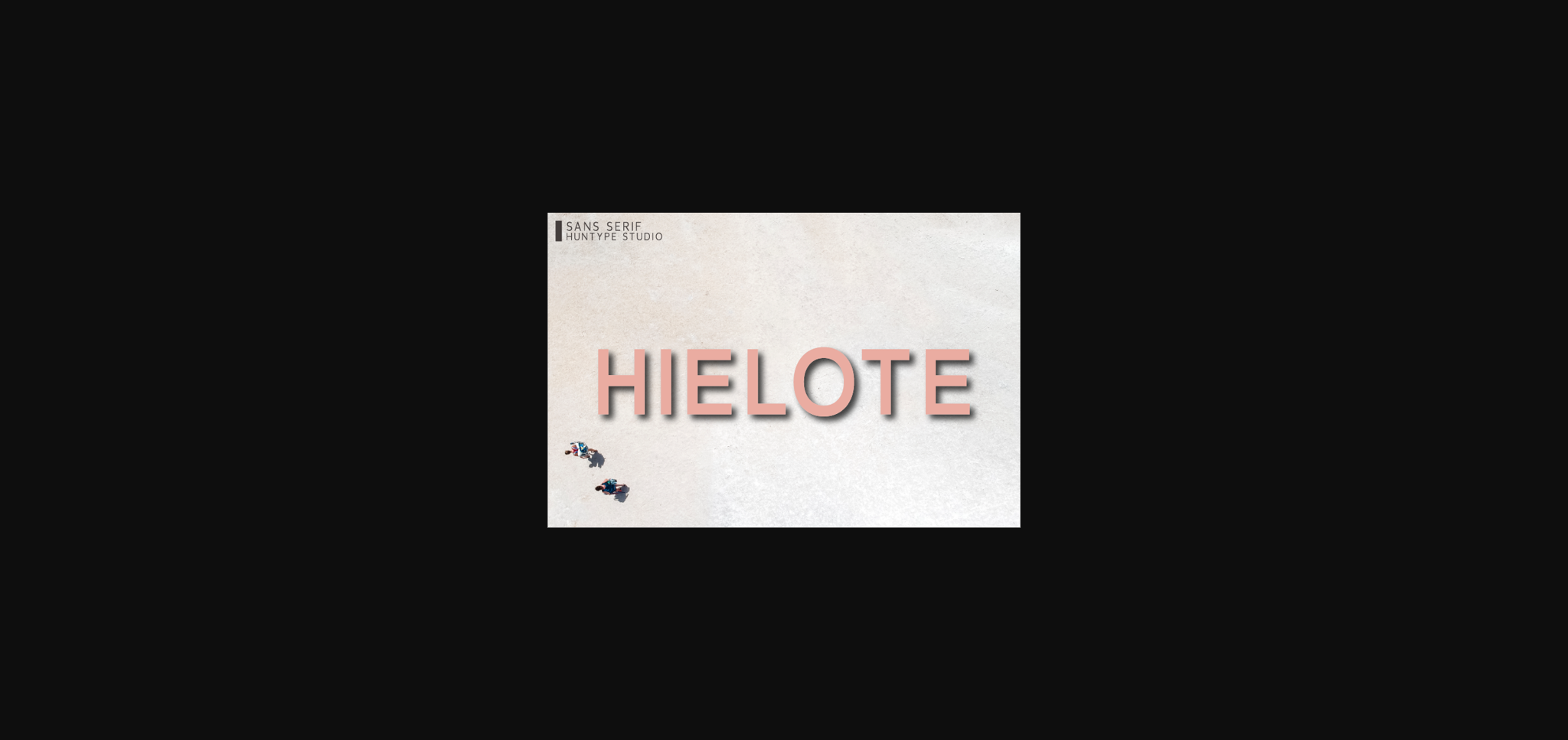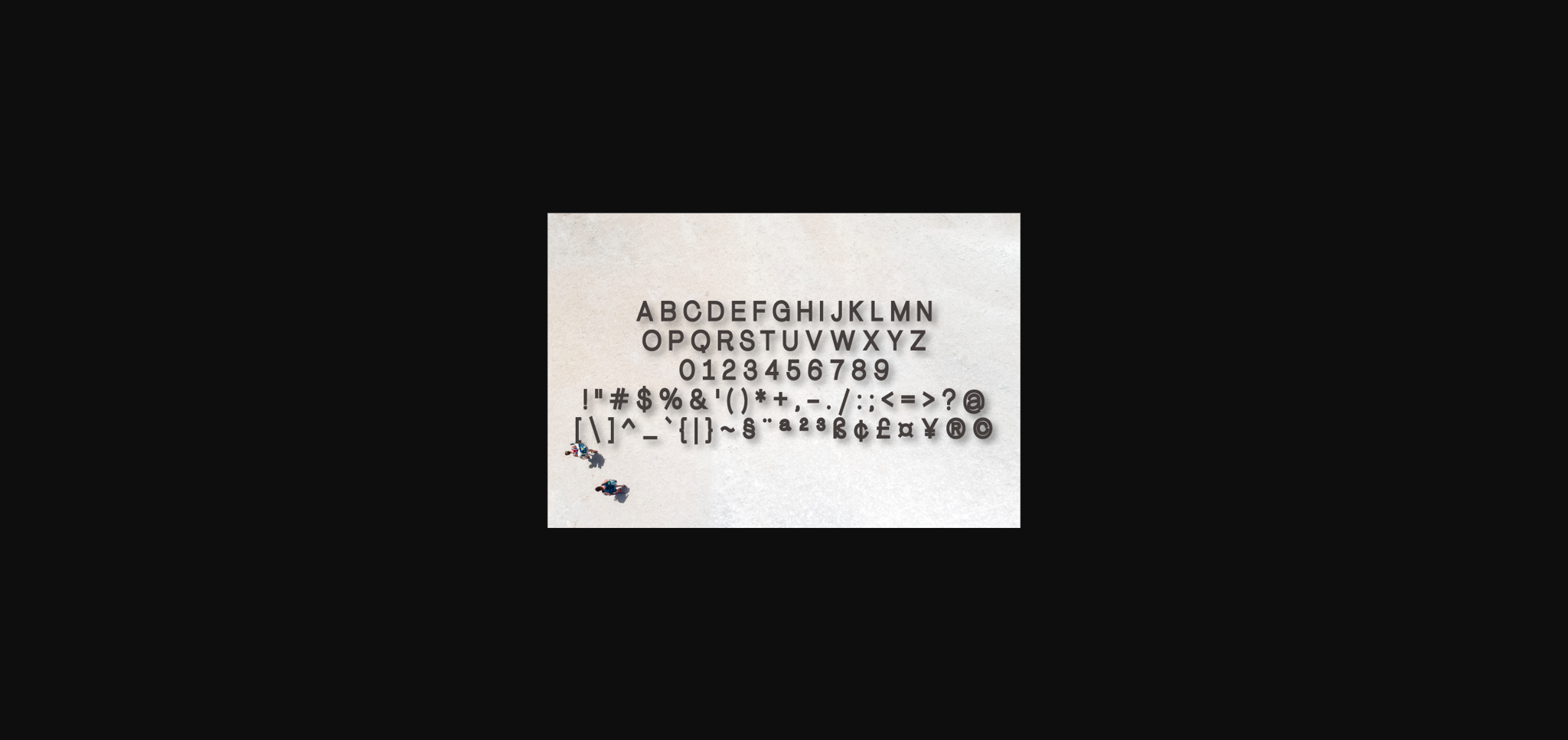
About Hielote Font
Hielote is a fancy, contemporary sans serif font. In addition to its well-balanced weight distribution, it delivers a sophisticated feel which is further emphasized by the carefully adjusted alternates and ligatures!